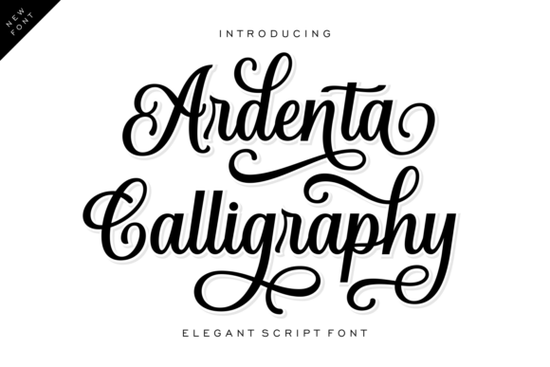
If you're looking for a calligraphy font that feels genuinely handcrafted without being hard to read, the Ardenta Calligraphy Font is worth a close look. It has the flowing, looping strokes you'd expect from traditional calligraphy, but with an upright structure that keeps every letter legible at smaller sizes. That balance between elegance and readability is exactly what makes it useful across so many different design projects.
What makes this calligraphy font different from other script typefaces?
Most script fonts lean either too formal or too casual. Ardenta sits right in the middle. The sweeping cursive strokes have looping calligraphic flourishes that give it personality, but the upright baseline keeps the text from looking messy. The elongated terminal swashes add a luxurious touch without overwhelming the overall composition.
Compared to something like a hand-lettered textured script, which has a more artisan feel, Ardenta feels polished and refined. It's a different mood entirely less rustic, more sophisticated. If you pair the two together, though, they actually complement each other nicely for layered typography work.
What projects work best with this font?
This font shines in projects where you want to communicate quality and elegance without looking stiff. Here are some specific uses where it really delivers:
- Wedding invitations and event stationery The flowing script style gives save-the-dates and formal invitations a romantic, hand-lettered look.
- Cosmetic and beauty branding Independent beauty brands and small cosmetics houses can use it for logos and packaging that feel premium.
- Floral studio identities Florists and botanical businesses benefit from the organic, natural movement in the letterforms.
- Boutique fragrance packaging The elongated swashes pair beautifully with minimalist label designs.
- Social media graphics Works well for Instagram headings, quote posts, or Pinterest pins that need to stand out in a feed.
- Greeting cards and stationery Personalized cards, thank-you notes, and gift tags all benefit from a refined script face.
If you're working on something with a more playful or whimsical tone, fonts like a fun, lighthearted script might be a better fit. But for projects that need to feel intentional and upscale, Ardenta is a strong choice.
How do you pair Ardenta with other fonts?
Script fonts rarely work well on their own for body text. You'll want to pair Ardenta with a clean serif or sans-serif for longer passages. A few approaches that work:
- Ardenta for headings + a light sans-serif for body text This is the simplest combination and works for most print and digital layouts.
- Ardenta for logos + a serif for supporting text Gives branding a classic, editorial feel.
- Ardenta for feature text + a complementary script for accents Mixing two scripts can work if they have different weights or styles, but use this sparingly to avoid visual clutter.
The key is contrast. You don't want two fonts competing for attention. Let Ardenta be the star of your layout and keep everything else understated.
Is this font a good fit for print-on-demand products?
For POD sellers who also create digital products planners, worksheets, social media templates having a font library that covers both elegant and casual moods is important. Ardenta covers the polished side well, and pairing it with something like a textured hand-lettered option for more casual designs gives you good range without buying dozens of typefaces.
Does it include alternates and extra characters?